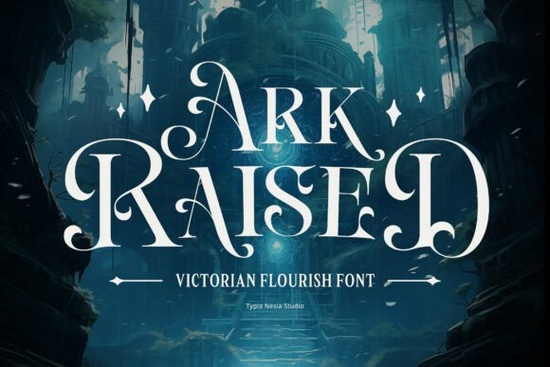
Ark Raised Font is a standout choice for anyone looking to add a touch of old-world elegance to their design projects. This Victorian serif font features intricate swashes and detailed flourishes that bring a sense of grandeur and drama to any visual composition. Whether you're working on a novel cover, a video game title, or a high-end packaging design, Ark Raised delivers a luxurious feel that's both timeless and eye-catching.
Designed with a focus on fantasy and premium aesthetics, Ark Raised Font works well for a variety of creative applications. Its bold yet refined style makes it perfect for logos, posters, and branding materials that require a sophisticated look. The font’s unique character ensures that your designs stand out without being overwhelming, making it a versatile tool for designers and artists alike.
What Makes Ark Raised Font Unique?
One of the key features of Ark Raised Font is its ornamental swashes, which give the text a dramatic and artistic flair. These details make it ideal for projects that require a sense of luxury and fantasy. Unlike more straightforward fonts, Ark Raised adds a level of sophistication that can elevate any design from ordinary to extraordinary.
The font also works well in both digital and print formats, ensuring that your designs maintain their quality across different mediums. Whether you're creating a website header, a social media graphic, or a printed brochure, Ark Raised maintains its clarity and visual impact.
Best Uses for Ark Raised Font
Ark Raised Font is particularly well-suited for fantasy-themed projects. Authors and publishers often use it for book covers, while game developers may incorporate it into branding or promotional materials. Its strong presence makes it a great choice for titles that need to grab attention and convey a sense of mystery or majesty.
Designers also appreciate its versatility. It can be used in combination with other fonts to create balanced layouts, or as a standalone choice for headings and banners. For small businesses looking to establish a premium brand identity, Ark Raised provides an elegant and memorable option.
How to Use Ark Raised Font Effectively
To get the most out of Ark Raised Font, consider pairing it with simpler typefaces for contrast. This helps prevent the design from becoming too busy while still maintaining a high level of visual interest. Experimenting with different sizes and spacing can also enhance the font’s natural beauty.
When using Ark Raised in digital projects, make sure to test it across various devices and screen sizes to ensure readability. For print work, check the font’s performance at different resolutions to avoid any issues with clarity or detail.